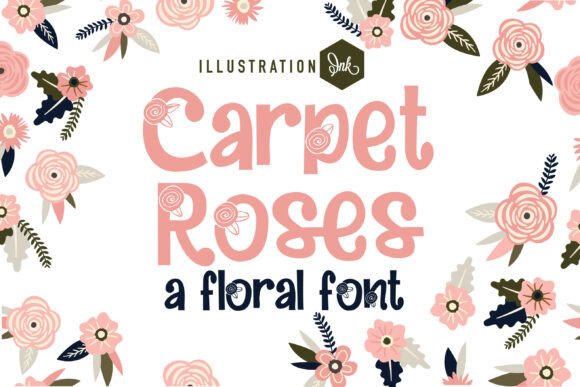
Discover the Charm of Carpet Roses: A Friendly Floral Display Font
I’ll never forget the design project that led me to fall in love with the Carpet Roses font. I was working on a branding project for a local boutique, and I was struggling to find the perfect font that captured the cozy, artisanal vibe of the brand. The client wanted something approachable, yet elegant, and I was on a mission to deliver. That’s when I stumbled upon Carpet Roses, a delightful floral display font that instantly won my heart.
A Personal Review: What I Love About Carpet Roses
So, what makes Carpet Roses so special? Here are a few things that I absolutely adore about this font:
- ✨ Soft, organic charm: Carpet Roses has a unique, hand-drawn feel that’s perfect for brands that want to convey a sense of warmth and approachability.
- ✅ Bouncy, sans-serif structure: The font’s playful structure is punctuated by internal rose-bud motifs, adding a touch of whimsy to any design.
- 💕 Cozy-boutique aesthetic: The rounded terminals and rhythmic baseline give Carpet Roses a distinctly “cozy-boutique” feel that’s perfect for brands that want to feel artisanal and full of heart.
While Carpet Roses is an amazing font, it’s not without its quirks. Here are a few things to keep in mind:
- ⚠️ Limited use in formal designs: Due to its playful, hand-drawn nature, Carpet Roses may not be the best choice for formal or corporate designs.
- 🤔 Some letter combinations can be tricky: As with any font, some letter combinations may not work as well as others. Be sure to test the font with your specific text to ensure the best results.
The Story Behind Carpet Roses
While the true story behind Carpet Roses may be unknown, it’s easy to imagine that the font was inspired by the whimsical world of flowers and gardens. Perhaps the designer, fueled by a passion for botany and typography, set out to create a font that captured the soft, organic charm of a garden in bloom.
| What is Carpet Roses best used for? | Carpet Roses is perfect for boutique logo design, handmade product packaging, children’s apparel, and casual social media headers. |
| Does Carpet Roses support OpenType features? | Yes, Carpet Roses supports OpenType features, including glyphs, stylistic alternates, and ligatures. |